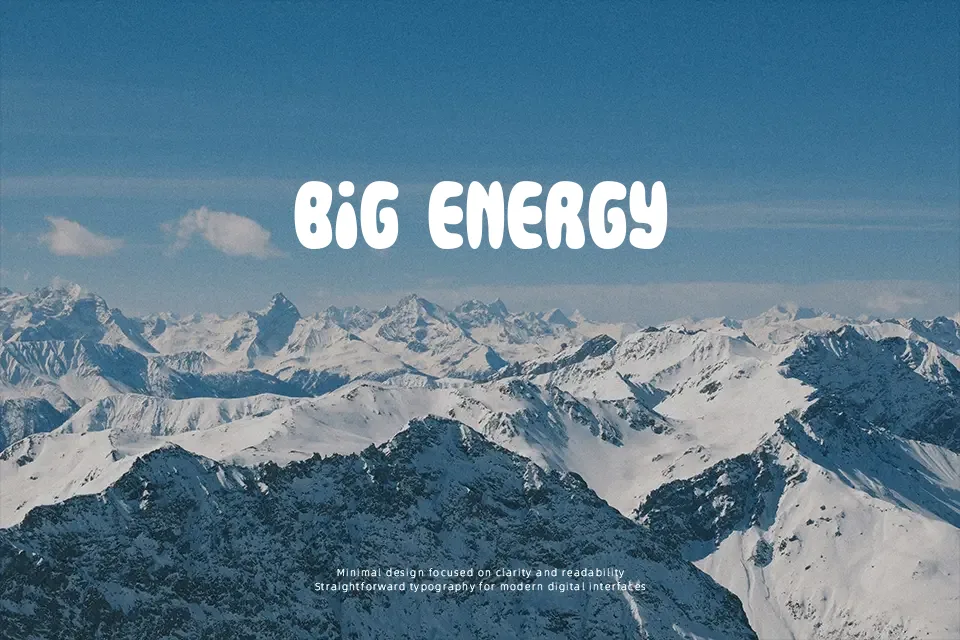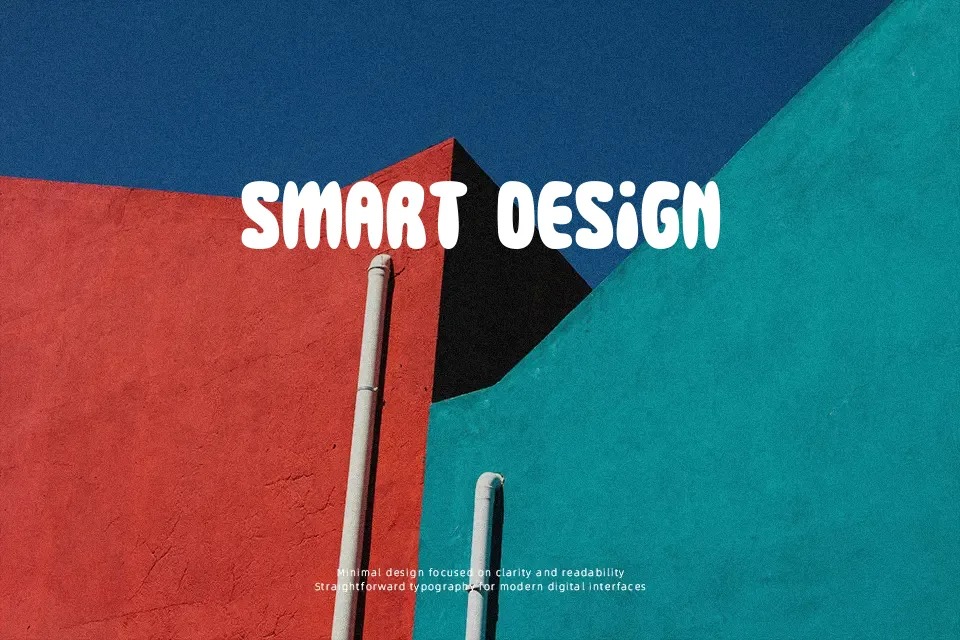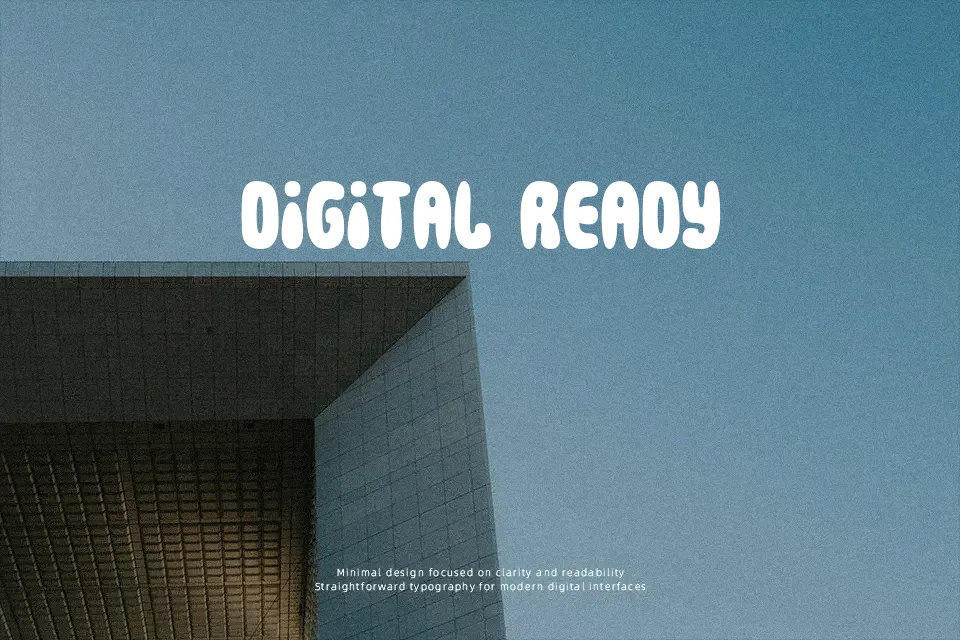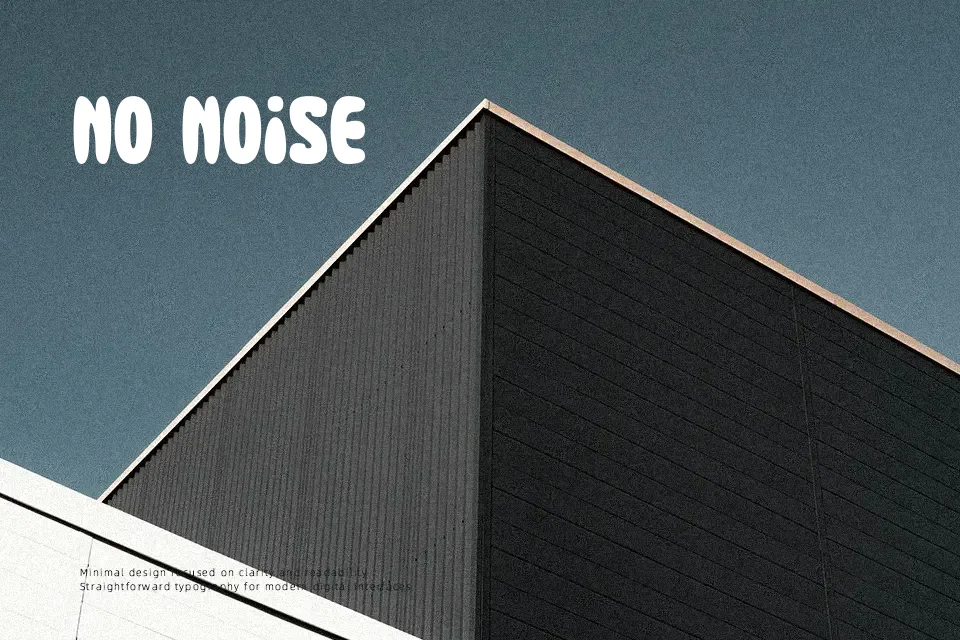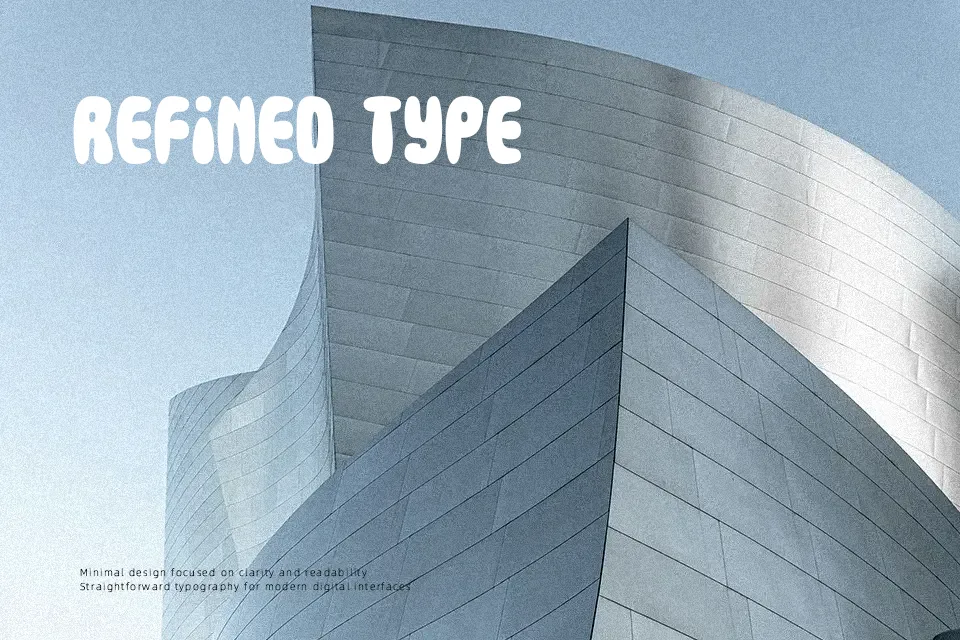
Squidgy Slimes Font
Designed by Darrell Flood
Squidgy Slimes Font uses soft, swollen letterforms with heavy, low-contrast strokes and rounded curves that create a deliberately gooey cartoon appearance. The characters appear broad and closely arranged, giving short words a dense, bouncy rhythm rather than a formal text texture. Its uneven, playful proportions are most effective in large headlines, labels, and graphic-led artwork. The thick shapes retain their presence well at display sizes, but the decorative forms can make smaller copy and extended reading feel crowded. It is a practical choice when the lettering itself needs to provide a playful visual theme.
Best For: kids’ party invitations,slime toy packaging,cartoon poster headlines,playful social media graphics